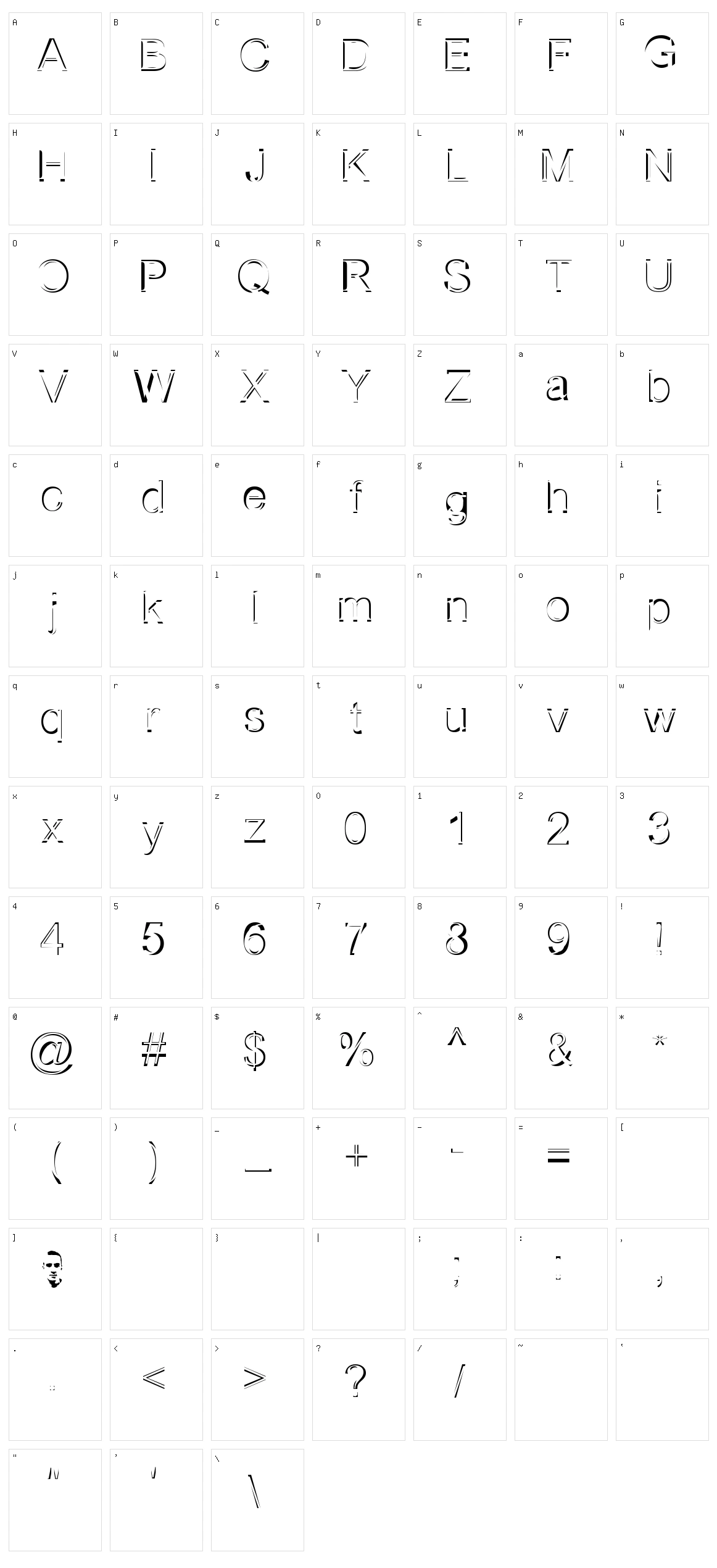
The free font Northern Book Sale is carefully designed by someone that wishes to stay anonymous, showcasing a thoughtful balance of creativity and usability and falls under the Distorted font style. When you download the ZIP file, it contains only 43.34 KB of font files, making it lightweight and quick to download. Please review the license details below to understand permitted usage and distribution rights. If license information is not available, we recommend using this font for personal projects only or contacting the author directly for commercial usage permissions.